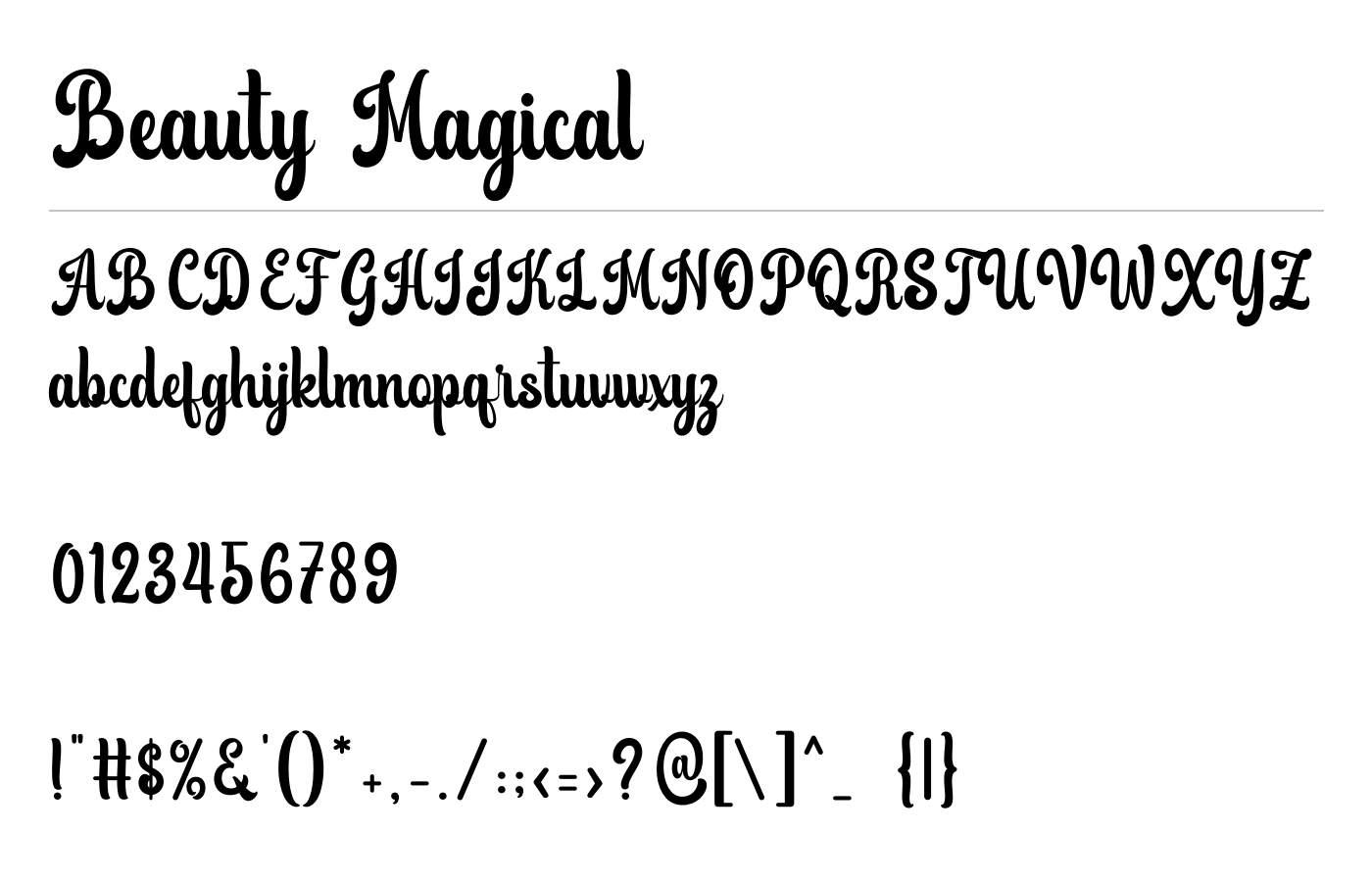
Beauty Magical is a stylish script font with bold, rounded strokes and playful, flowing curves that give it a charming and friendly personality. Its upright letterforms and consistent stroke weight make it ideal for eye-catching headlines, logos, and branding that aim to convey warmth and creativity, especially in beauty, fashion, and lifestyle contexts. This font works well where you want a touch of whimsy combined with a strong, inviting presence.
Beauty Magical Font
About Beauty Magical Font
| Font family | Beauty Magical Font |
| Designer | Hamber Perdiansyah |